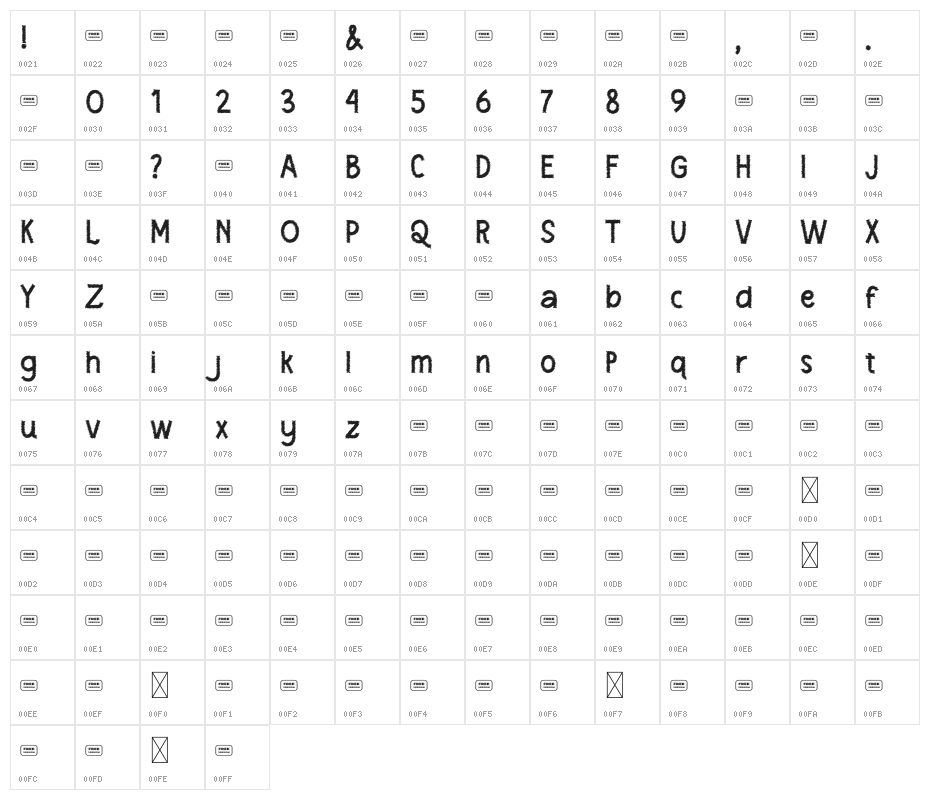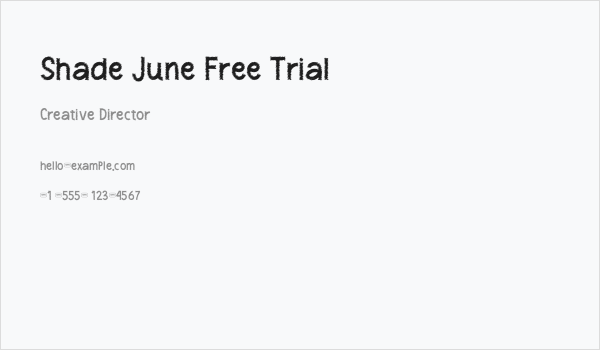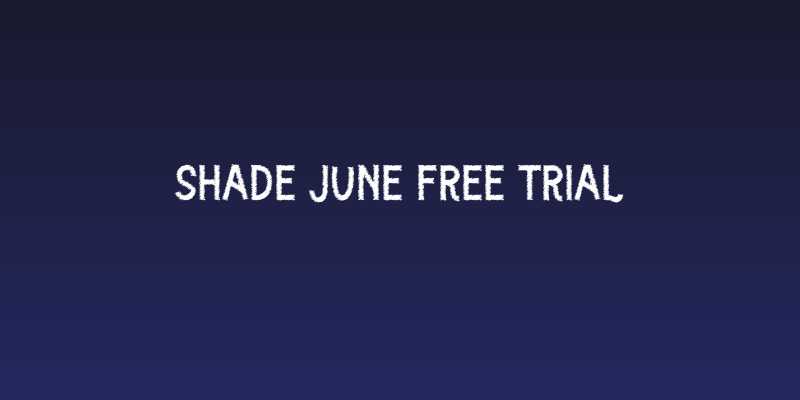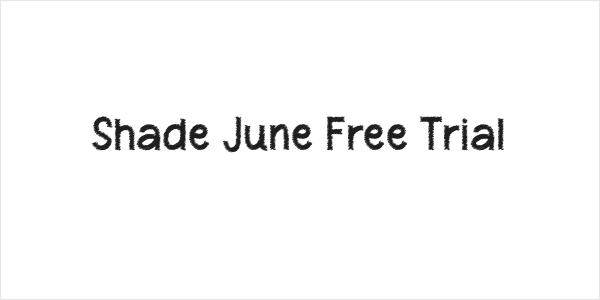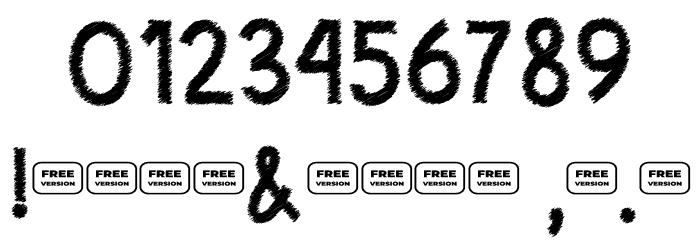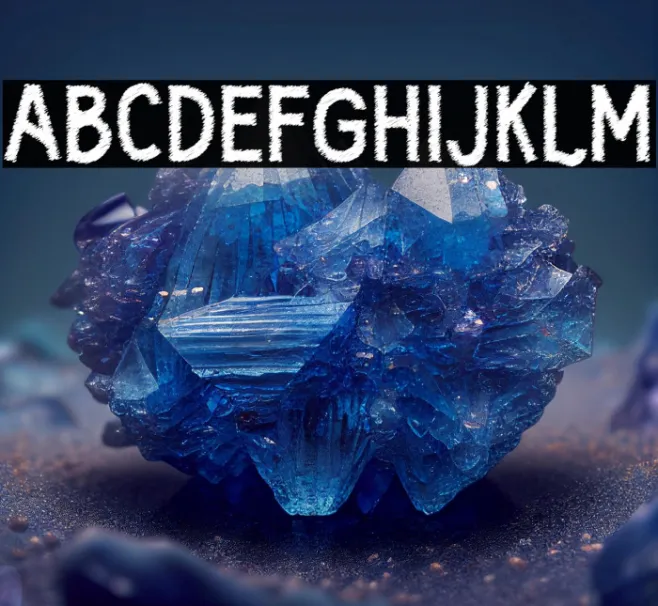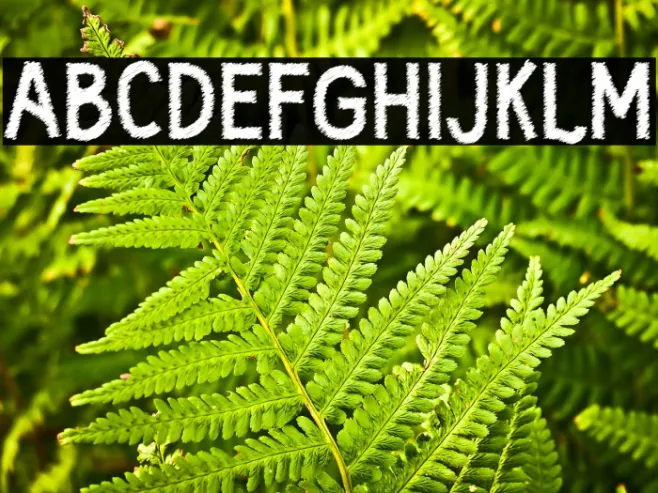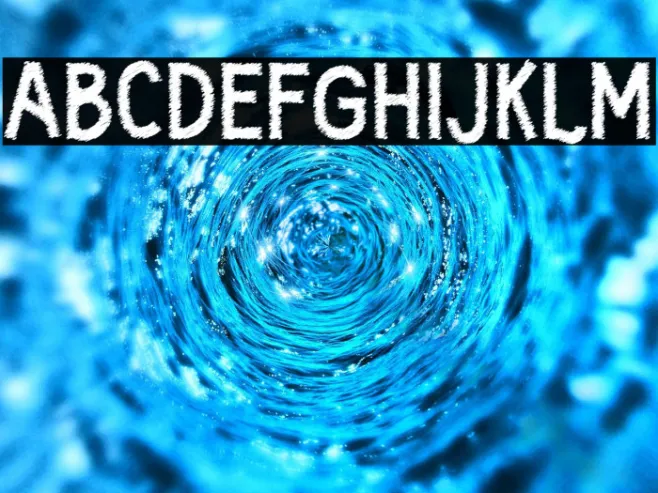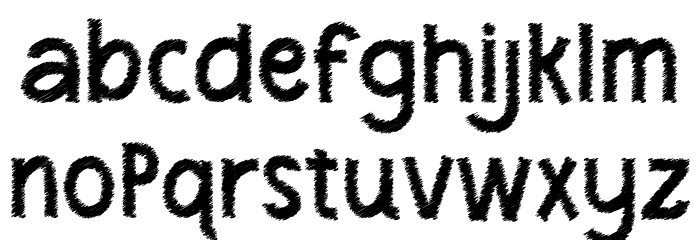
Shade June Free Trial Font
This font features a unique, textured appearance that resembles hand-drawn or sketched letters. The characters are bold and have a rough, uneven edge, giving them a dynamic and energetic feel. The uppercase and lowercase letters maintain a consistent style, while the numerals and special characters complement the overall design. This font stands out with its artistic flair, making it suitable for creative and informal projects.
| Proposed Projects | Ideal for posters, artistic projects, branding materials, and any design requiring a creative and informal touch. |